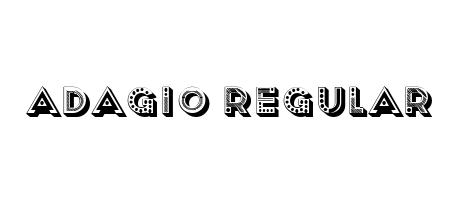
Adagio
Adagio Regular is a bold, Art Deco-inspired typeface. Its letters are thick, with a distinct bevel and shadow effect, giving them a three-dimensional feel. Intricate geometric patterns subtly decorate the letterforms, adding a touch of vintage glamour and sophistication to its retro-modern style. The overall impression is one of luxury and refined elegance.